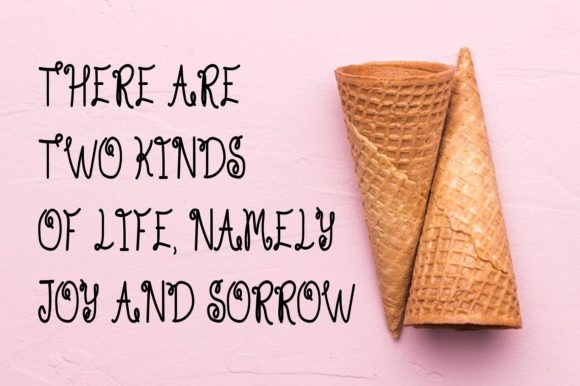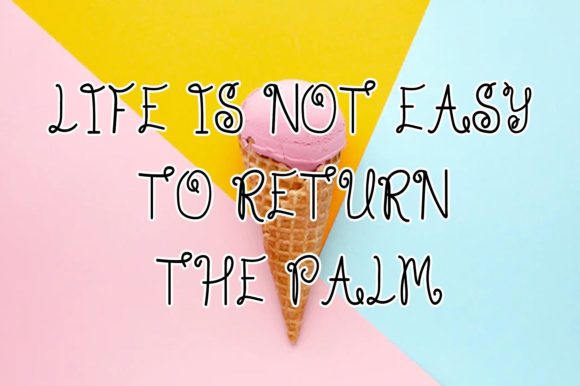
Sour Ice Cream Font
db-ku.com - Script & Handwritten -- Sour Ice Cream Font is a cute and whimsical handwritten font. It will look outstanding in any context. Whether you’re looking for fonts for Instagram or calligraphy scripts for DIY projects, this font will turn any creative idea into a true piece of art!